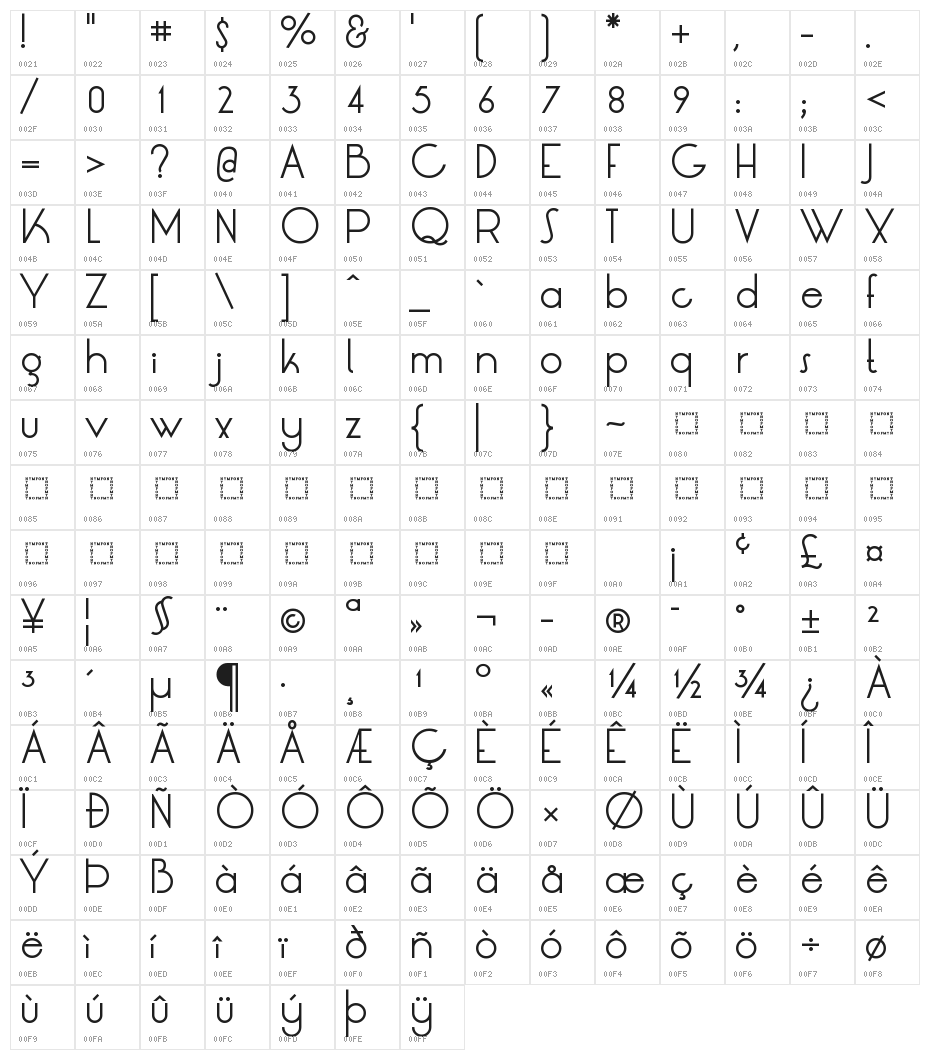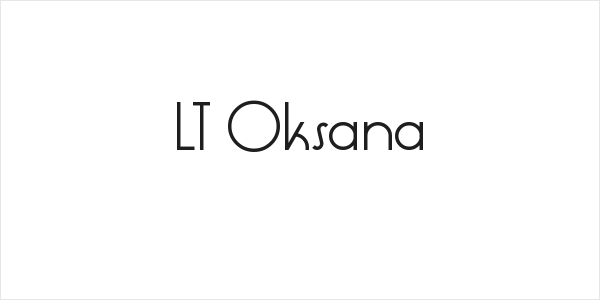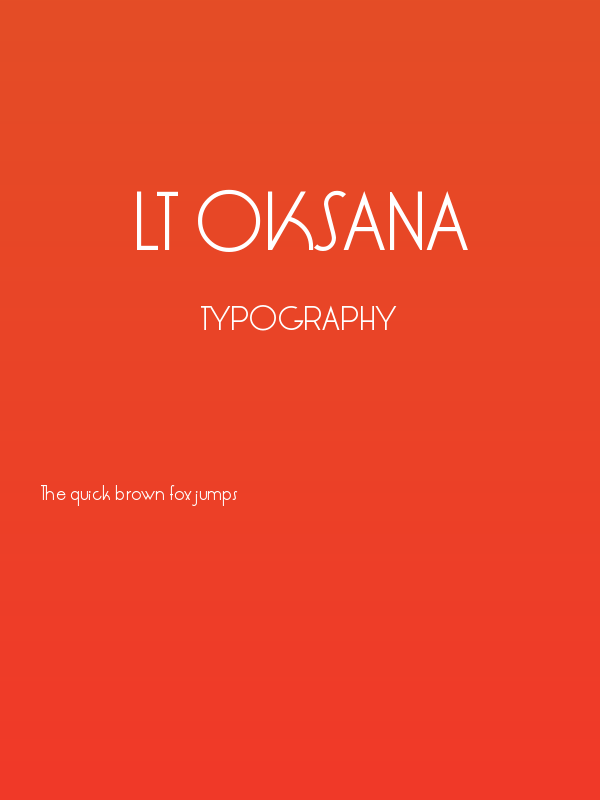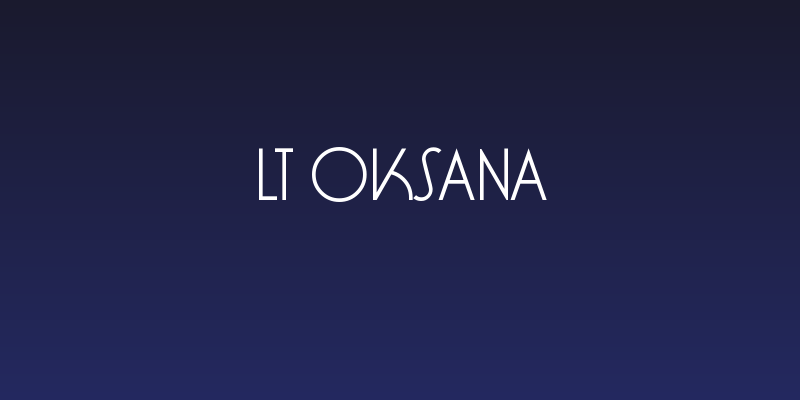
LT Oksana Font
LT Oksana Description
This font features a sleek and modern design with clean lines and a geometric structure. The uppercase letters are tall and elegant, with a slight art deco influence visible in the angular forms and elongated strokes. The lowercase letters maintain a consistent style, offering a harmonious blend of curves and straight lines. The numerals are distinct and easy to read, while the special characters complement the overall aesthetic. This font's minimalistic yet stylish appearance makes it suitable for various design applications.
| Proposed Projects | Ideal for branding, editorial design, posters, and digital media projects. |